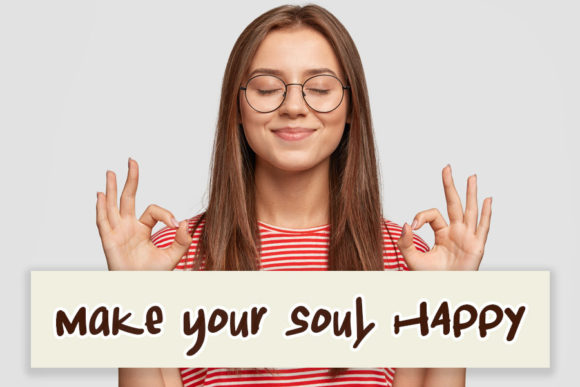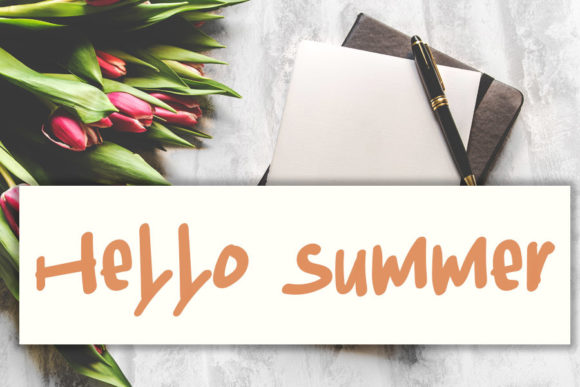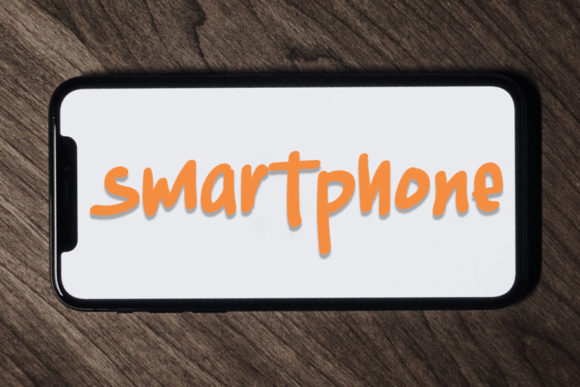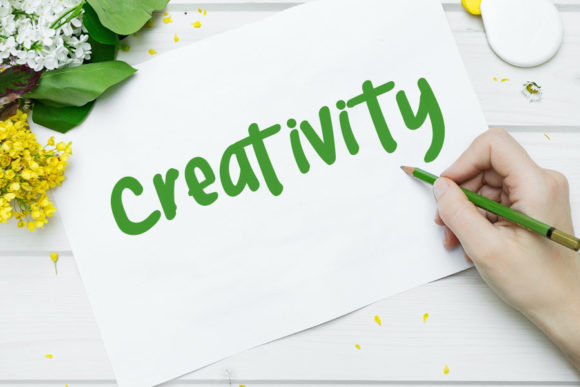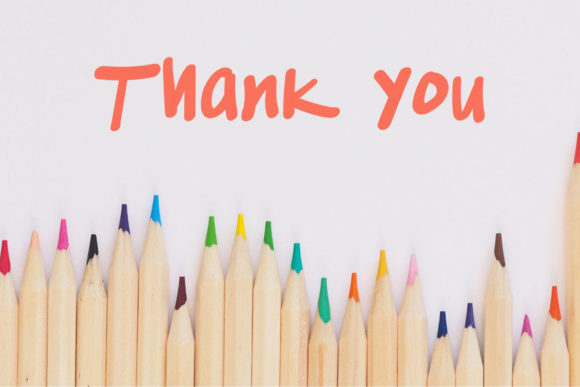
Introduction to Marocco Font
Have you ever been stuck on a creative project, searching for the perfect font to bring your design to life? That’s exactly what happened to me the last time I was working on a children’s theme project. I wanted a font that would convey a sense of playfulness and relaxation, something that would make my design stand out. And then, I stumbled upon the Marocco Font.
This beautiful, brushed handwritten font is not only easy to use but also incredibly versatile. With its transparent background, it can be easily layered with other design elements, making it a valuable resource for any designer. Whether you’re working on a children’s book, a website, or a social media campaign, the Marocco Font is sure to add a touch of warmth and personality to your design.
Key Features of Marocco Font
- Unique, hand-drawn style with a transparent background for versatility
- Supports a wide range of languages, making it a valuable design resource
- Includes 6 font styles with varying weights and widths for added flexibility
- Designed with a high resolution of 300 DPI for crisp and clear display
- Perfect for designers and artists looking for a distinctive and creative font
Honest Review: Marocco Font
I recently had the opportunity to work with the Marocco Font, and I must say it’s been a game-changer for my creative projects. As a designer, I’m always on the lookout for high-quality design resources that can elevate my work.
The Marocco Font is a free download that offers a transparent background, making it perfect for designers who need a versatile font for their projects. I’ve used it for everything from branding to editorial design, and it never fails to impress.
- ✨ Transparent background for seamless integration
- ⚠️ Limited character set, which may not be suitable for long-form content
- ⚠️ Not ideal for body text due to its decorative nature
Overall, I’m thoroughly impressed with the Marocco Font. Its unique design and high-quality feel make it a valuable addition to any designer’s toolkit. While it may have some limitations, I believe it’s a great resource for designers who need a bold, eye-catching font for their creative projects.
Tips for Getting the Most Out of Marocco Font
For optimal results, use Marocco Font on a transparent background to create a clean and minimalist design. Experiment with different font sizes and styles to add visual interest to your project.
Marocco Font is ideal for creative projects, such as brochures, business cards, and social media graphics. Its high-quality design and transparent background make it perfect for use in various digital and print media applications.